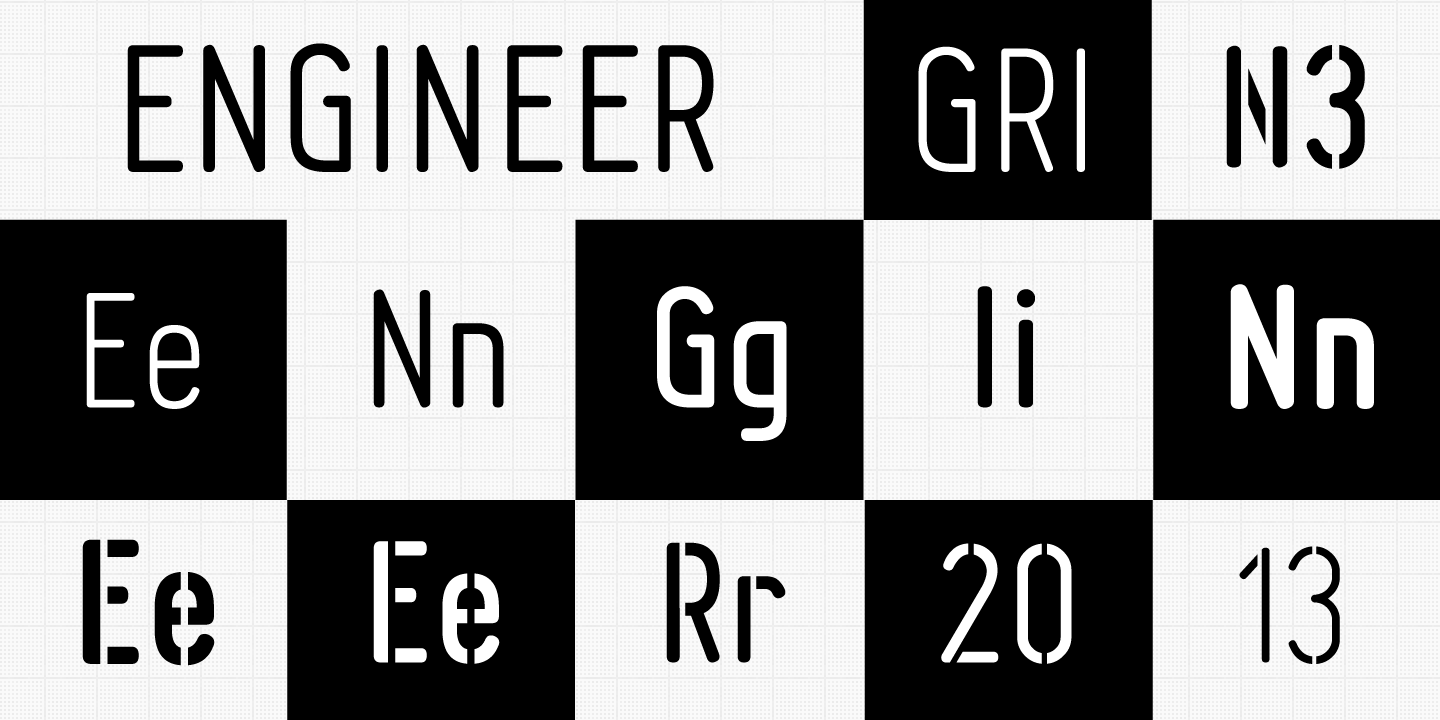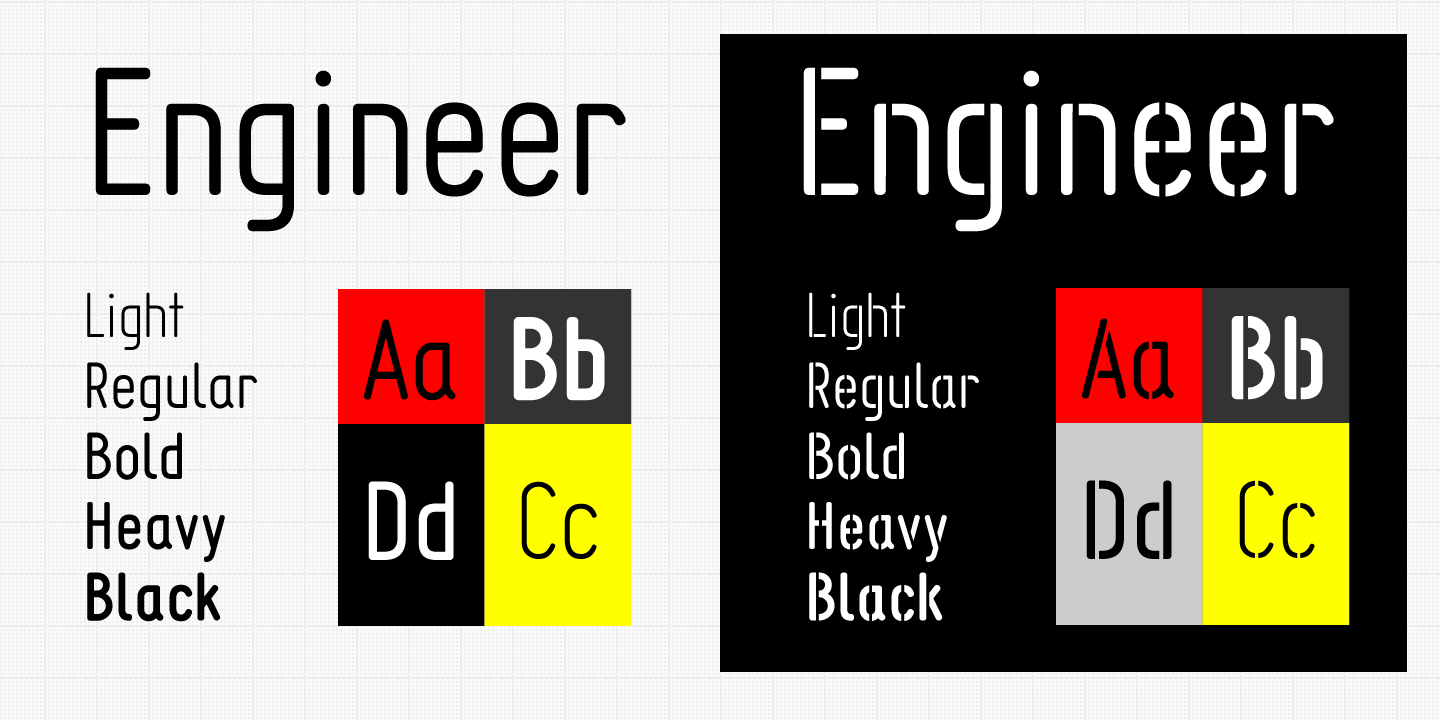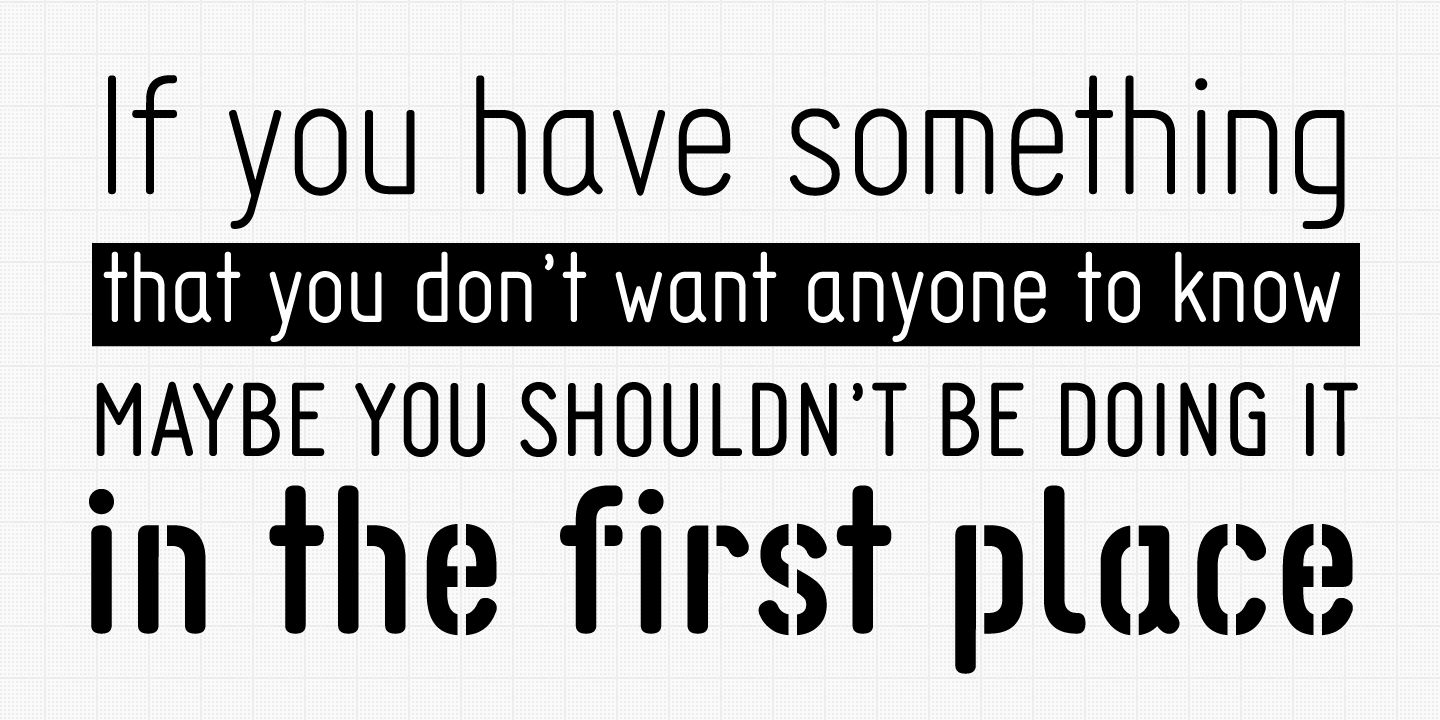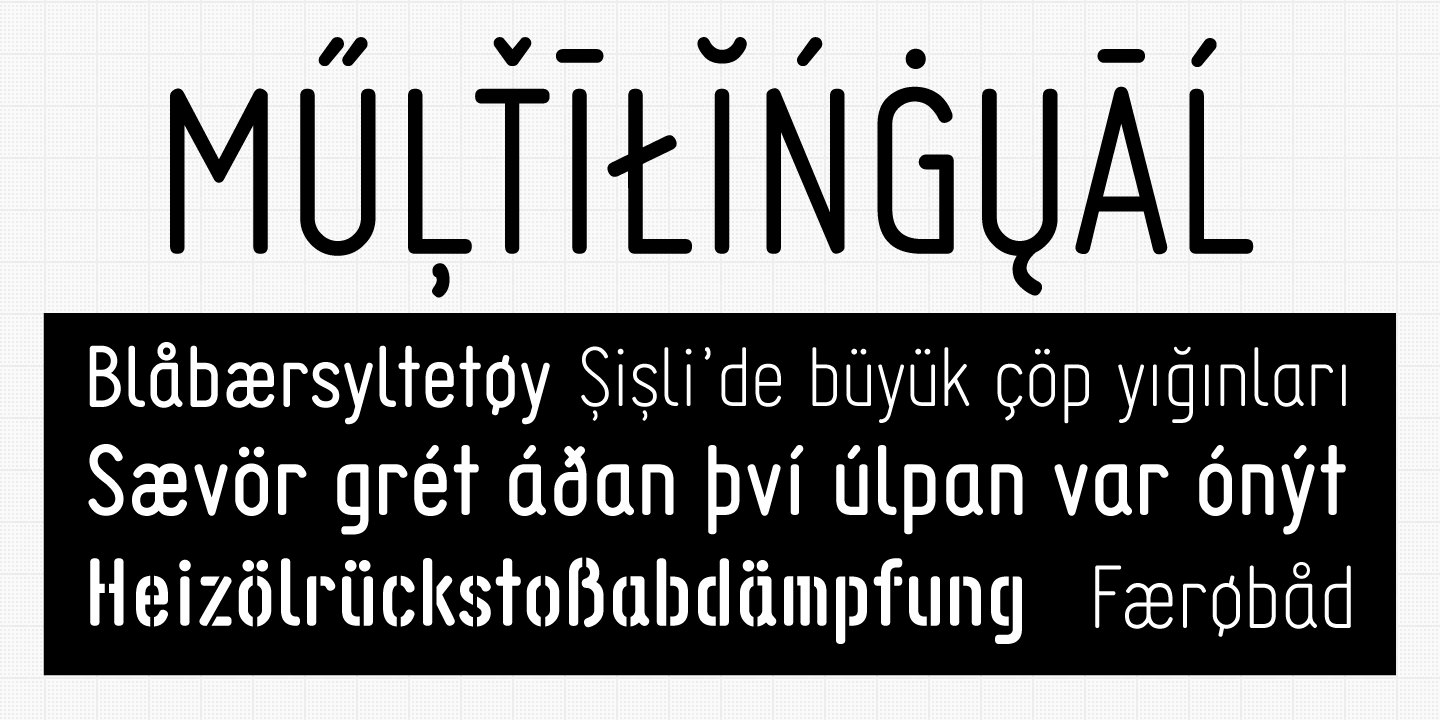
Engineer
Font Family by GRIN3 (Nowak)
Engineer is a new, completely redesigned and improved version of my font TechnicznaPomoc, which was released for the first time in 2001.
Language support includes Western, Central and Eastern European character sets, as well as Baltic and Turkish languages.